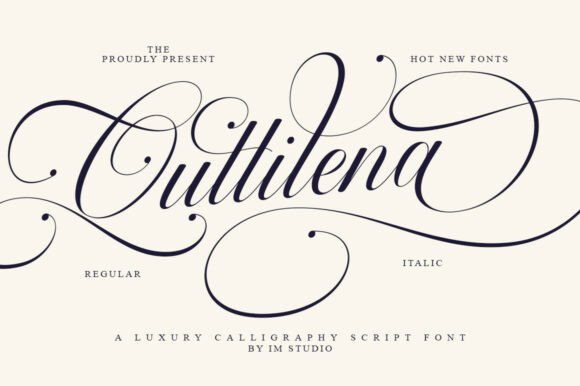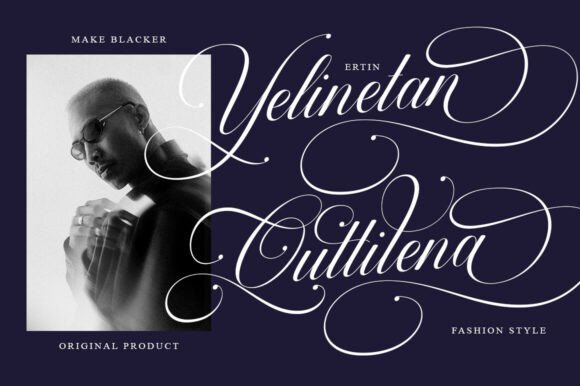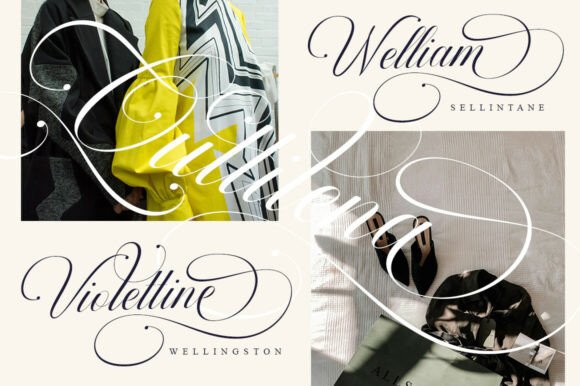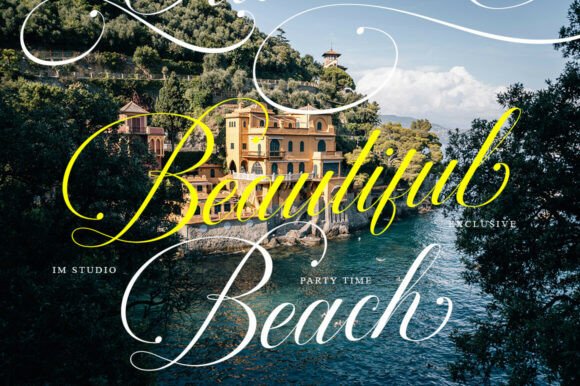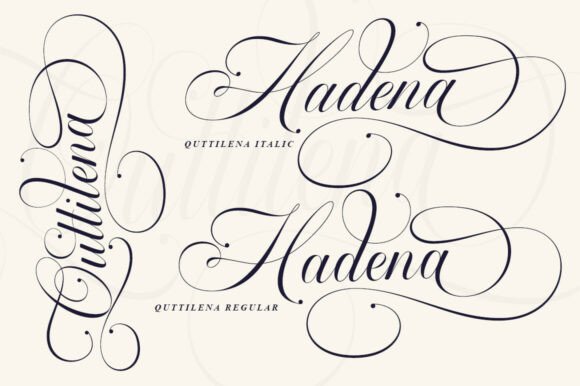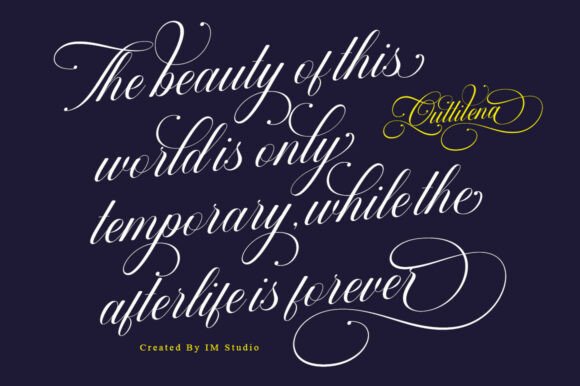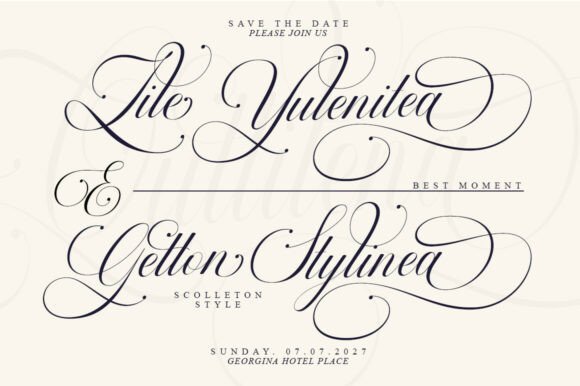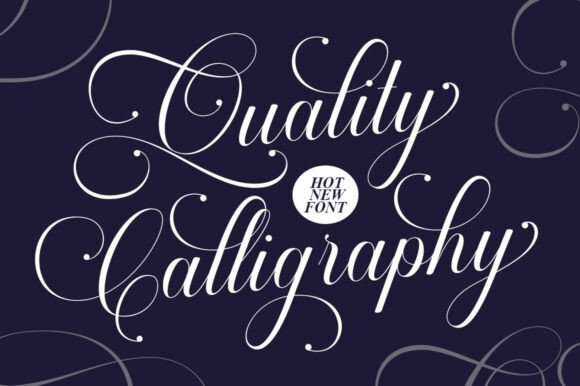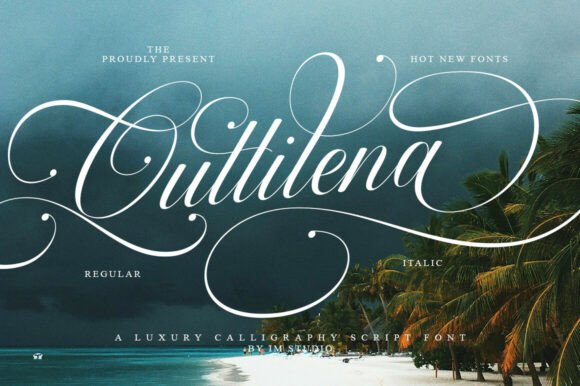
Quttilena Font
Embrace unparalleled elegance with Quttilena, a truly luxurious calligraphy script font defined by its extreme, sweeping swashes, delicate hairlines, and breathtaking ornamental detailing.
This typeface is a masterpiece of fine penmanship, featuring an abundance of exaggerated loops and extravagant curves that extend across and around the text, giving every word an opulent, custom-crafted appearance reminiscent of classic high society stationery.
Quttilena is designed for maximum visual impact and sophistication. It includes extensive OpenType features, including stylistic alternates, ligatures, and swashes, that allow for limitless personalization and flow. It is the premier choice for high-end wedding and event stationery, luxury product branding, perfume and jewelry advertisements, fashion magazine editorials, fine art exhibition titles, personal signature logos, and any project demanding an exquisite, dramatic, and exclusive aesthetic of timeless, bespoke luxury.